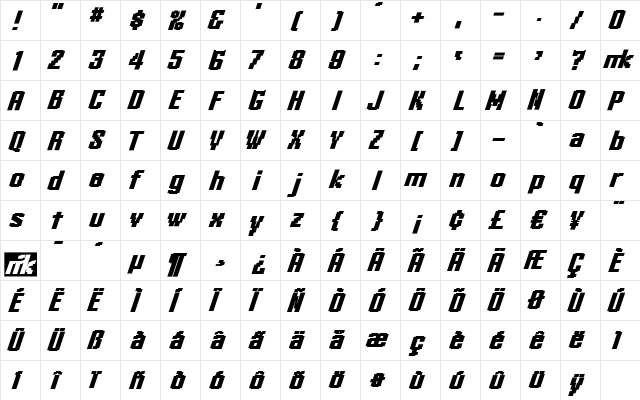
KleinHeadline-BoldOblique Regular Font Preview
Design Context for KleinHeadline-BoldOblique Typeface
KleinHeadline-BoldOblique is a composed and adaptable typeface that performs quietly and consistently across a wide range of design contexts. The dynamic lean of this cut emphasises speed and emphasis in any layout. The heavy weight commands attention and anchors typographic hierarchies.